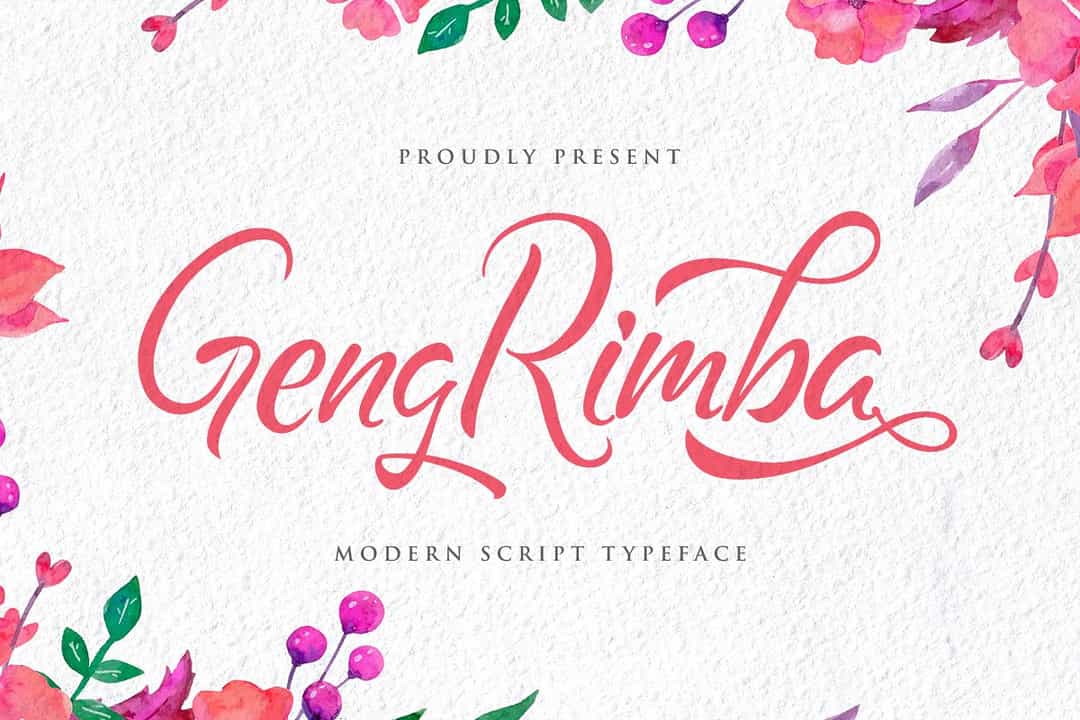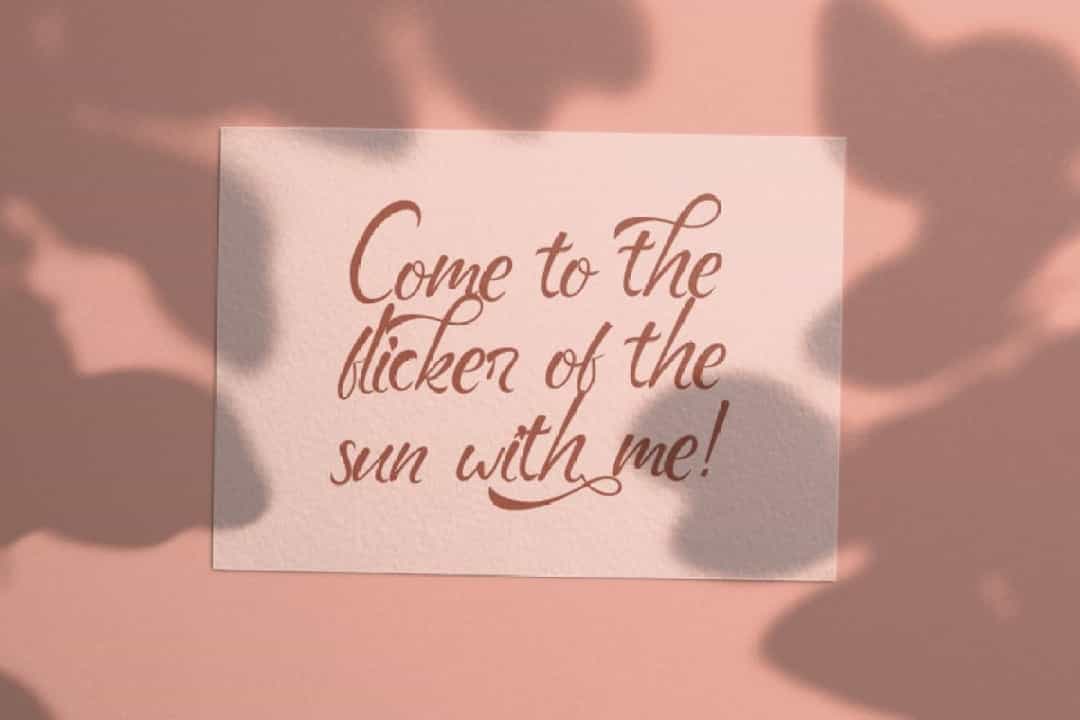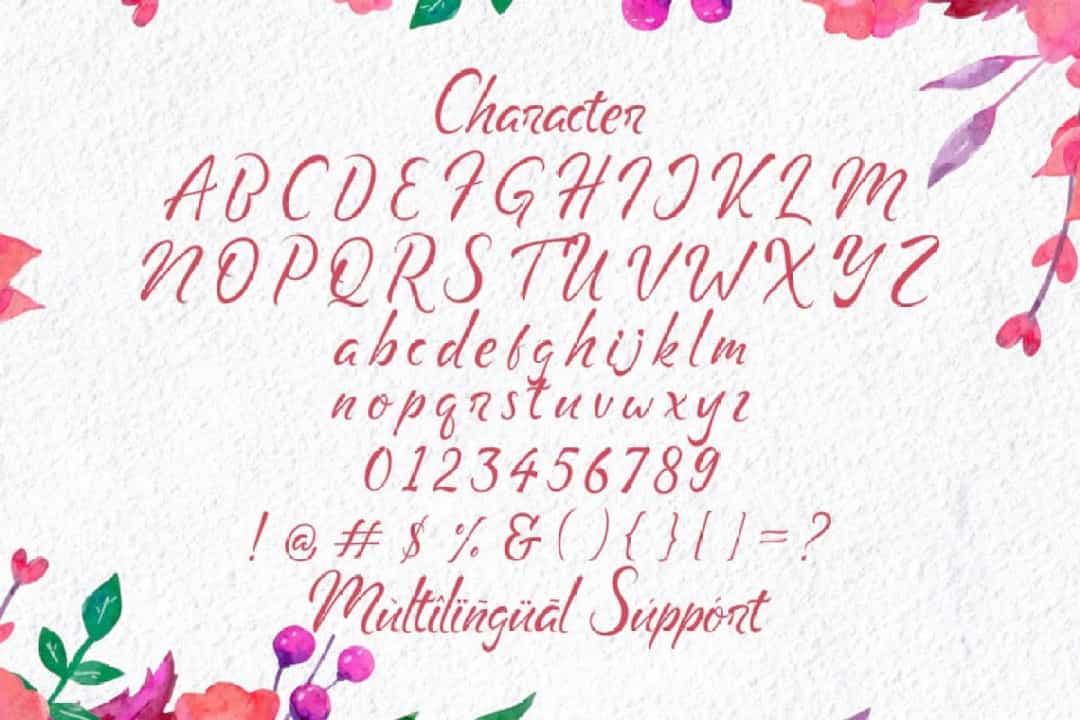
Geng Rimba is a graceful font with thin and fancy stroke which makes the font to look very elegant and fluent. It has realistic and equally developed characters and its versatility in application; Geng Rimba will transform the most original ideas into reality! Forget about it and use it in your imagination and see how it will come to life right in front of you!